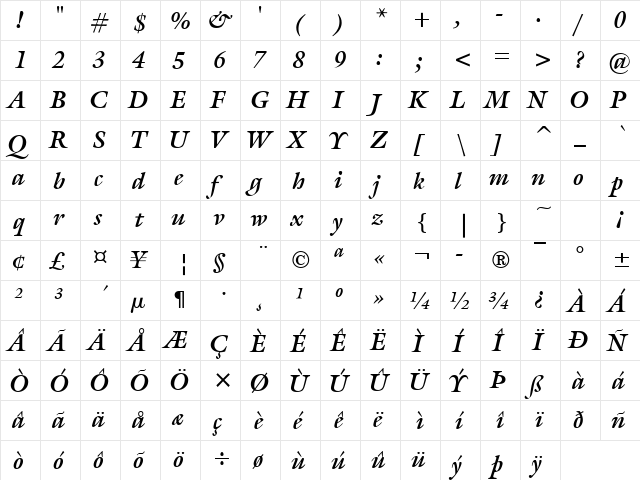
Gallery Bold Italic
Design Context for Gallery Typeface
Gallery offers clean, dependable letterforms without strong stylistic allegiance, making it a practical choice for designers who need flexibility. The dynamic lean of this cut emphasises speed and emphasis in any layout. Its bold stroke weight gives it real presence on the page.
Pro Tip: Try Gallery for annotation and caption copy alongside an upright companion — the contrast in angle creates a dynamic but ordered typographic system.